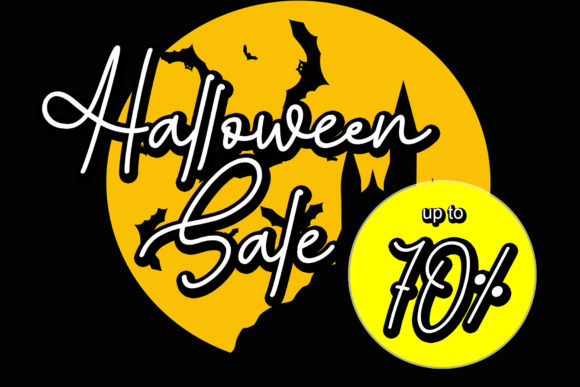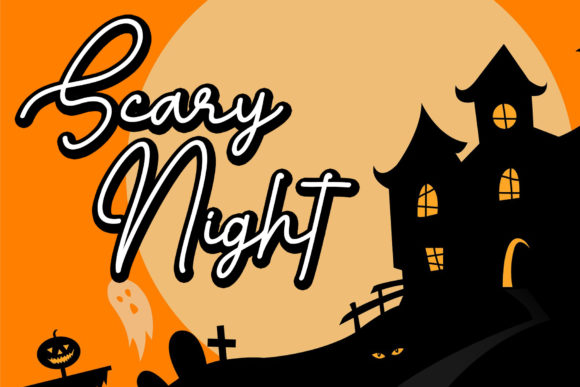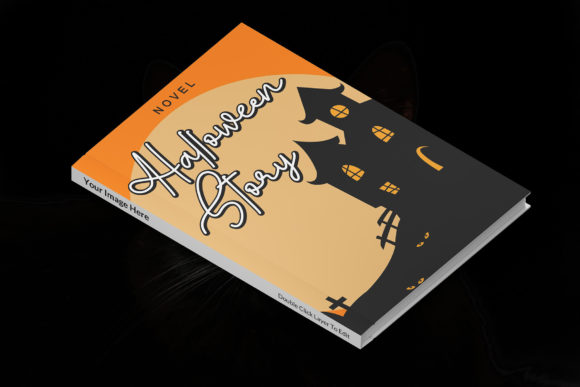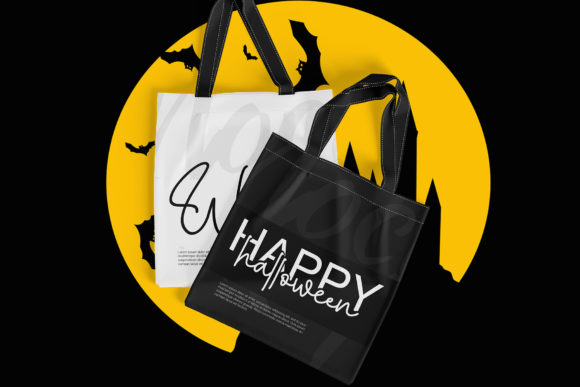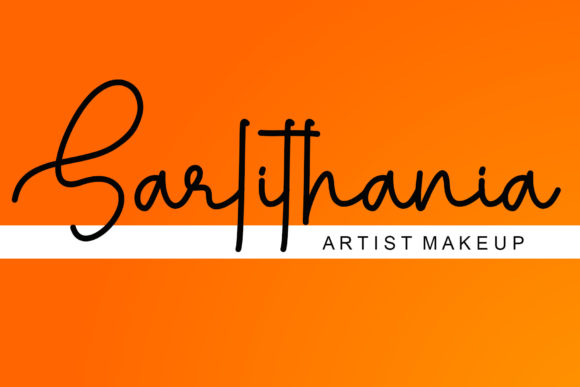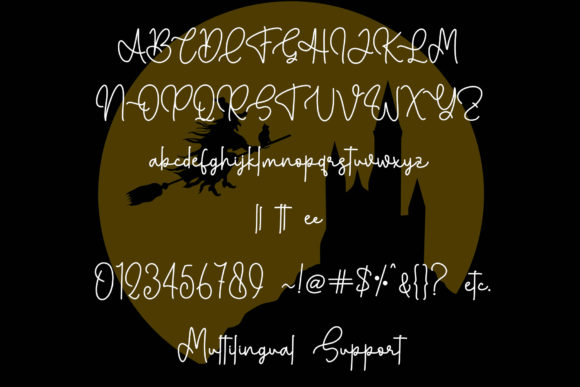
Unleash the Spooky Charm with Halloween Monoline Font
As the spookiest time of the year approaches, designers and crafters are on the lookout for the perfect font to add a touch of eerie elegance to their projects. Look no further than the Halloween Monoline Font, a beautiful, well-balanced, and vintage-styled script font that’s sure to cast a spell on your audience.
What is Halloween Monoline Font?
Halloween Monoline Font is a stunning script font that exudes a sense of sophistication and refinement. Defined by smooth curves and a balanced design, this font is perfect for fashion branding, editorial designs, and any project that requires a touch of elegance. Its monoline style gives it a unique and modern twist, making it stand out from traditional script fonts.
Key Features of Halloween Monoline Font
- Beautifully Crafted: Halloween Monoline Font is carefully designed to ensure that every letter is a work of art. Its smooth curves and flowing lines make it a joy to use in any project.
- Vintage Style: This font boasts a vintage flair that’s perfect for designers who want to add a touch of nostalgia to their work.
- Well-Balanced: The font’s balanced design ensures that it’s easy to read and visually appealing, making it perfect for use in a variety of projects.
- Monoline Style: The monoline style gives the font a modern and sleek look that’s sure to make your designs stand out.
Perfect for Fashion Branding and Editorial Designs
Halloween Monoline Font is an excellent choice for fashion branding and editorial designs. Its elegant and sophisticated design makes it perfect for use in:
- Fashion Magazines: Add a touch of glamour to your fashion magazine with this stunning font.
- Clothing Brands: Use Halloween Monoline Font to create a unique and memorable brand identity for your clothing label.
- Editorial Designs: This font is perfect for use in editorial designs, such as blog posts, articles, and more.
Why Choose Halloween Monoline Font?
With so many fonts to choose from, why should you choose Halloween Monoline Font? Here are just a few reasons:
- Unique Design: This font has a unique and distinctive design that’s sure to make your projects stand out.
- Versatile: This font can be used in a variety of projects, from fashion branding to editorial designs.
Halloween Monoline Font is a stunning script font that’s perfect for designers and crafters who want to add a touch of spooky charm to their projects. With its beautiful design, vintage style, and monoline twist, this font is sure to cast a spell on your audience. So why wait? Download Halloween Monoline Font today and start creating spooky and sophisticated designs that will leave a lasting impression.